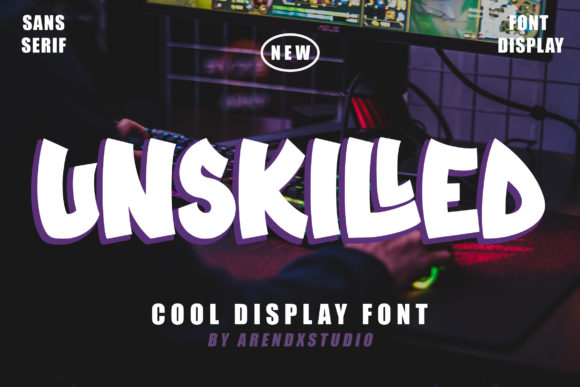
Buckle up for a typographic adventure with Unskilled Font, the ultimate display font that's ready to ignite your creativity and leave a lasting impression. This bold and captivating font, crafted with precision by Arendxstudio, is your secret weapon to crafting captivating designs that speak volumes.
Unskilled Font is not just a font; it's an experience. Its thick, blocky letters exude strength and confidence, making it the perfect choice for creating posters, flyers, and prints that demand attention. Imagine your designs leaping off the page, commanding attention with every stroke.
With Unskilled Font, the possibilities are endless. Unleash your imagination and let your designs soar. This font is your passport to a world of visual impact, where your messages resonate with power and leave an indelible mark on your audience's minds.
But there's more to Unskilled Font than meets the eye. This font is a treasure trove of untapped potential, waiting for you to unlock its full splendor. Explore its unique character set, featuring a captivating blend of uppercase and lowercase letters, numbers, and punctuation marks, each meticulously crafted to add depth and dimension to your designs.
Don't settle for ordinary fonts that blend into the background. Embrace the power of Unskilled Font and watch your designs transform into masterpieces. Its bold presence will elevate your projects to new heights, ensuring they stand out from the crowd and leave a lasting impression.
So, embark on this typographic journey with Unskilled Font and discover a world of creative possibilities. Let your imagination run wild and create designs that captivate, inspire, and leave a lasting impact. The time is now to unleash the full potential of your creativity with Unskilled Font.